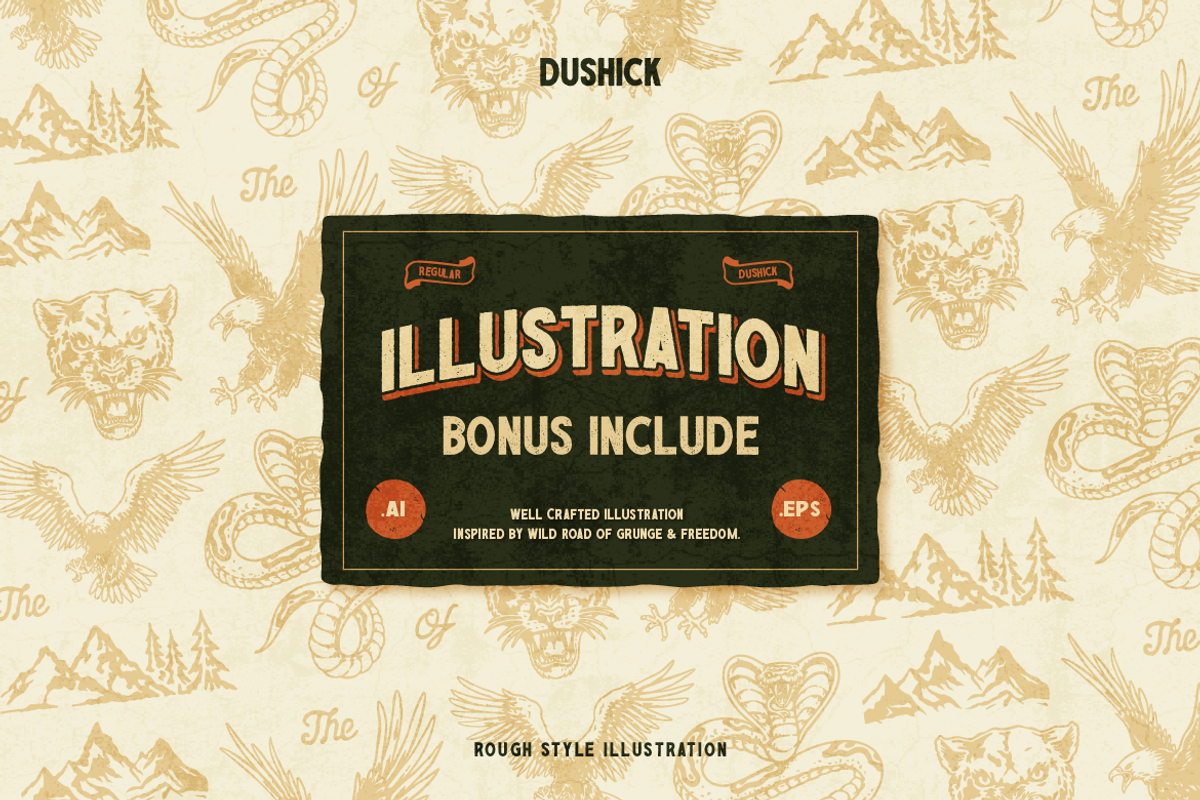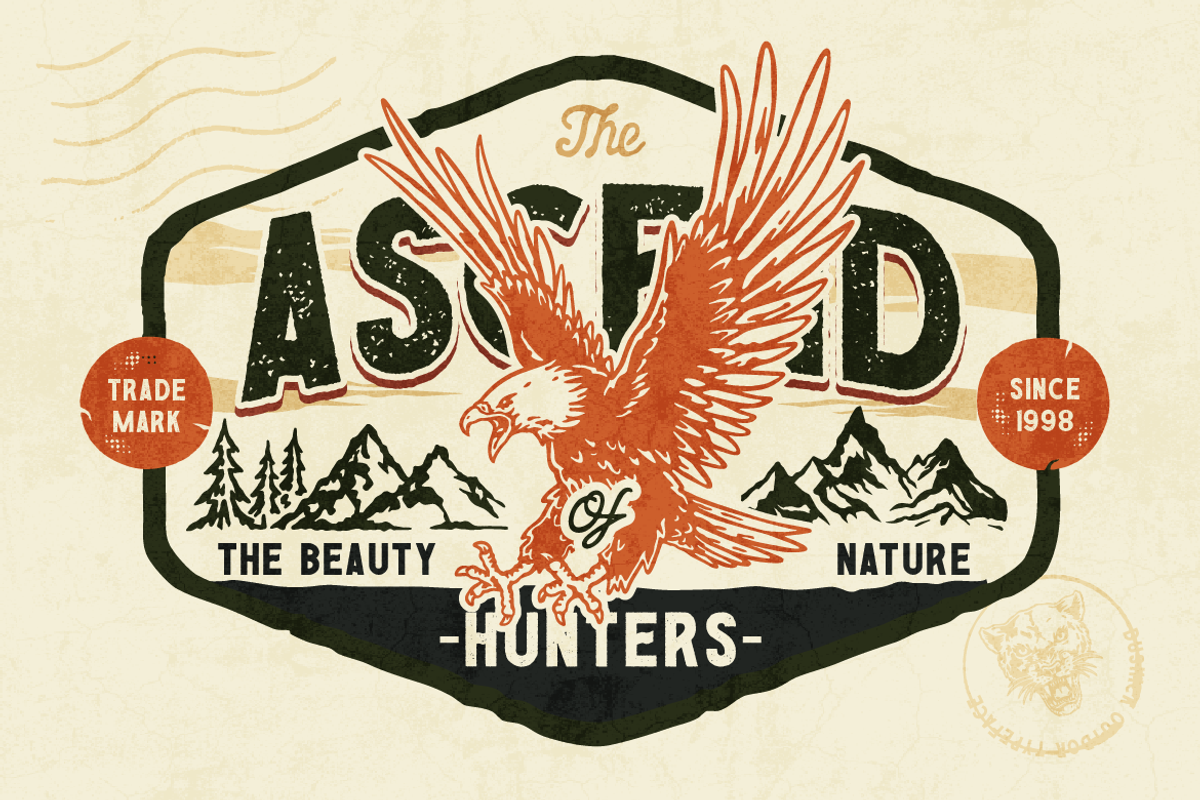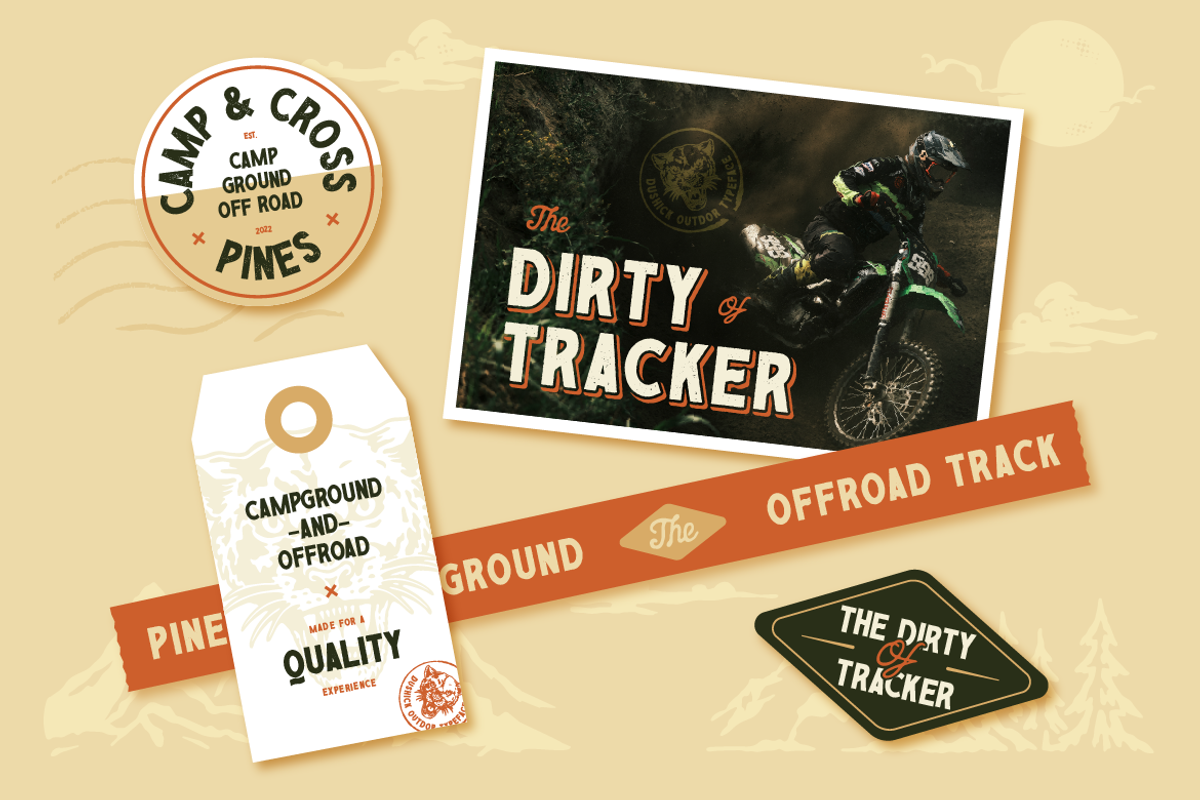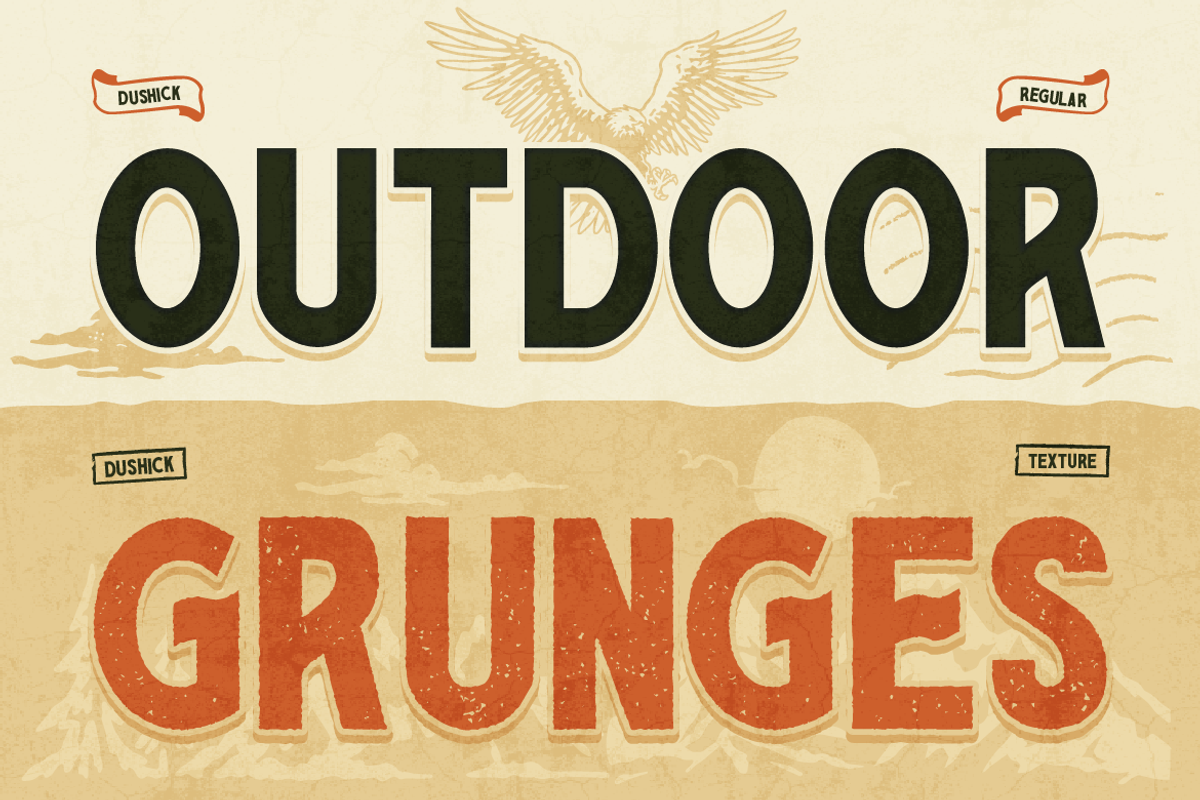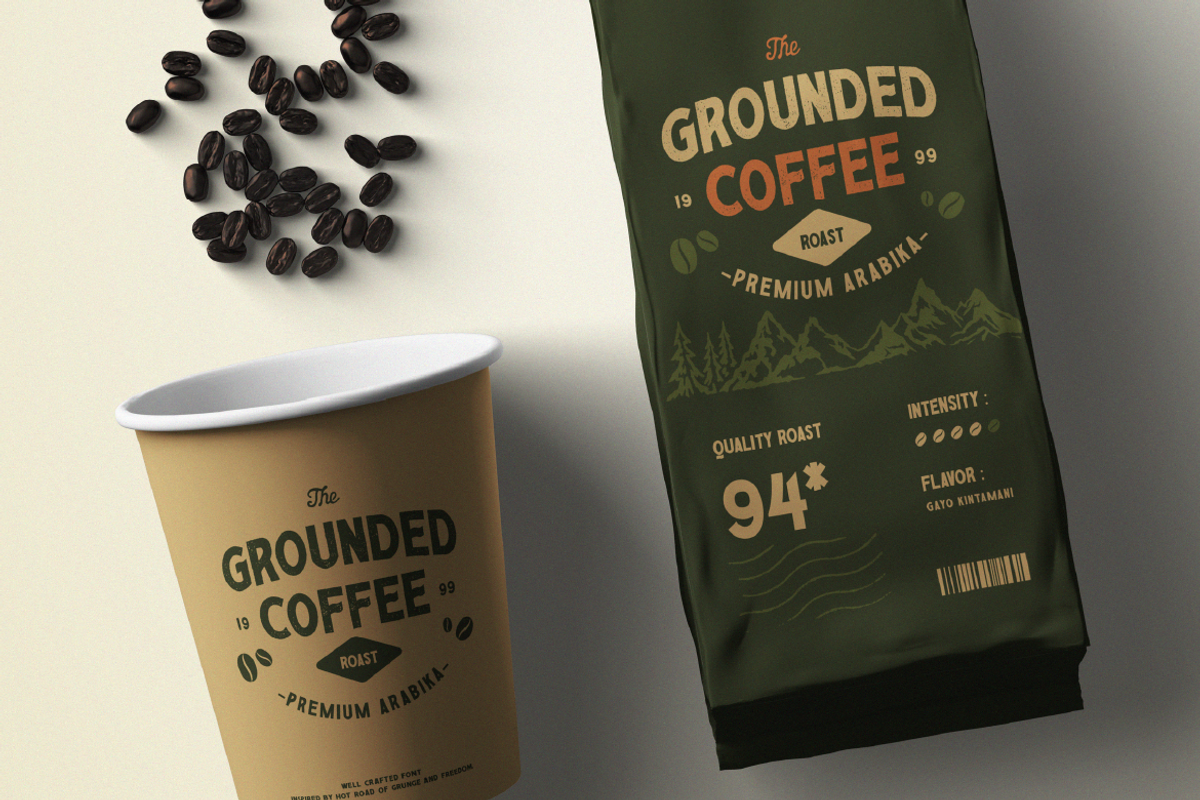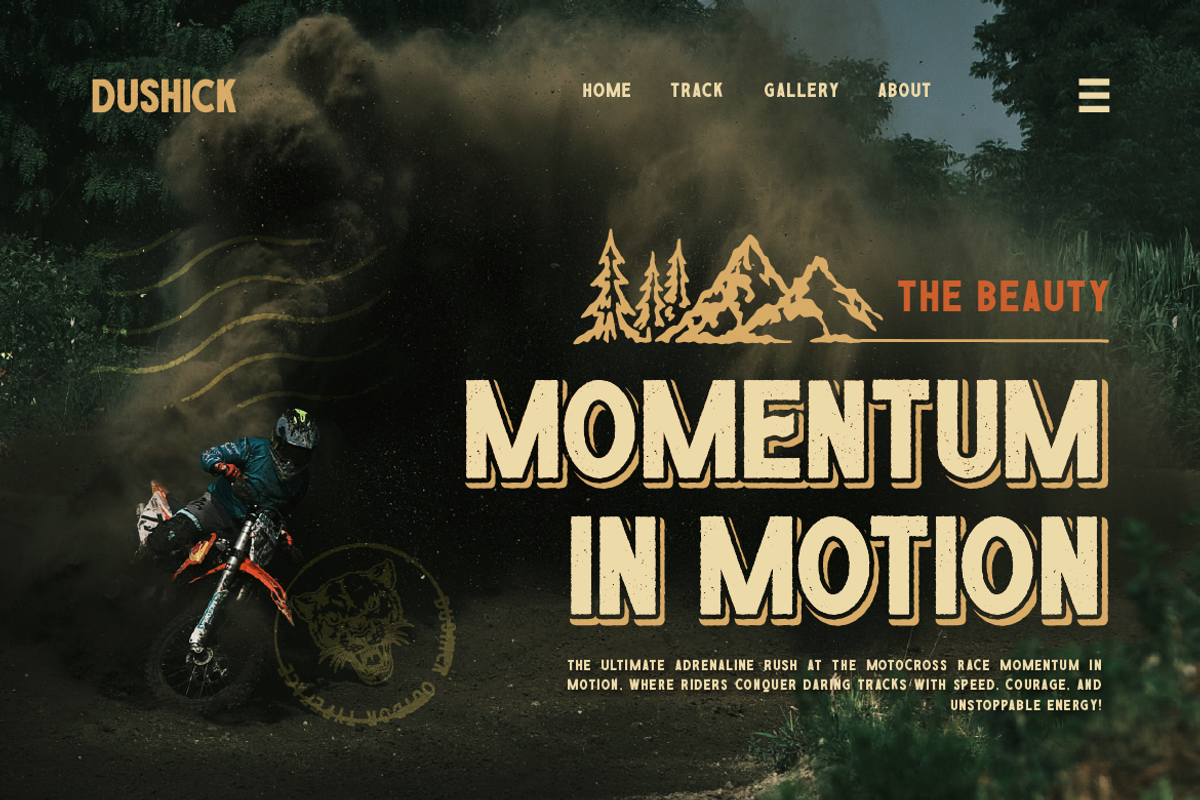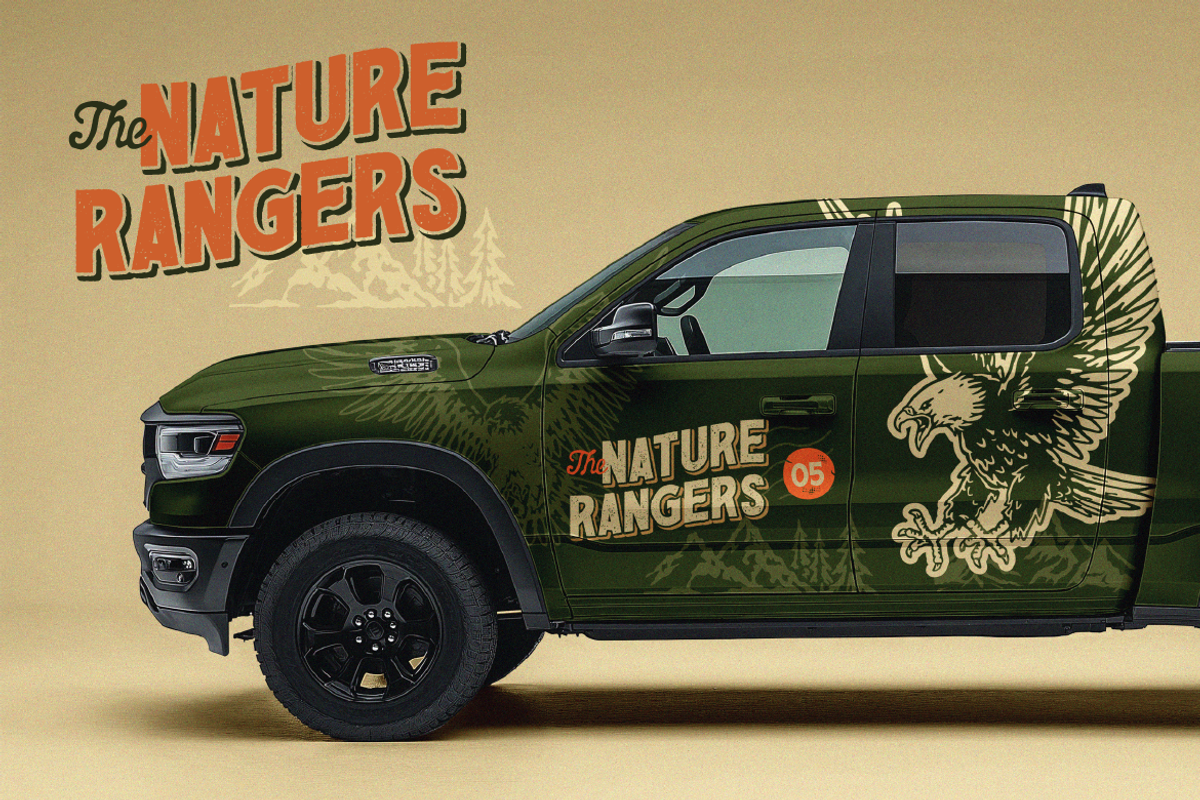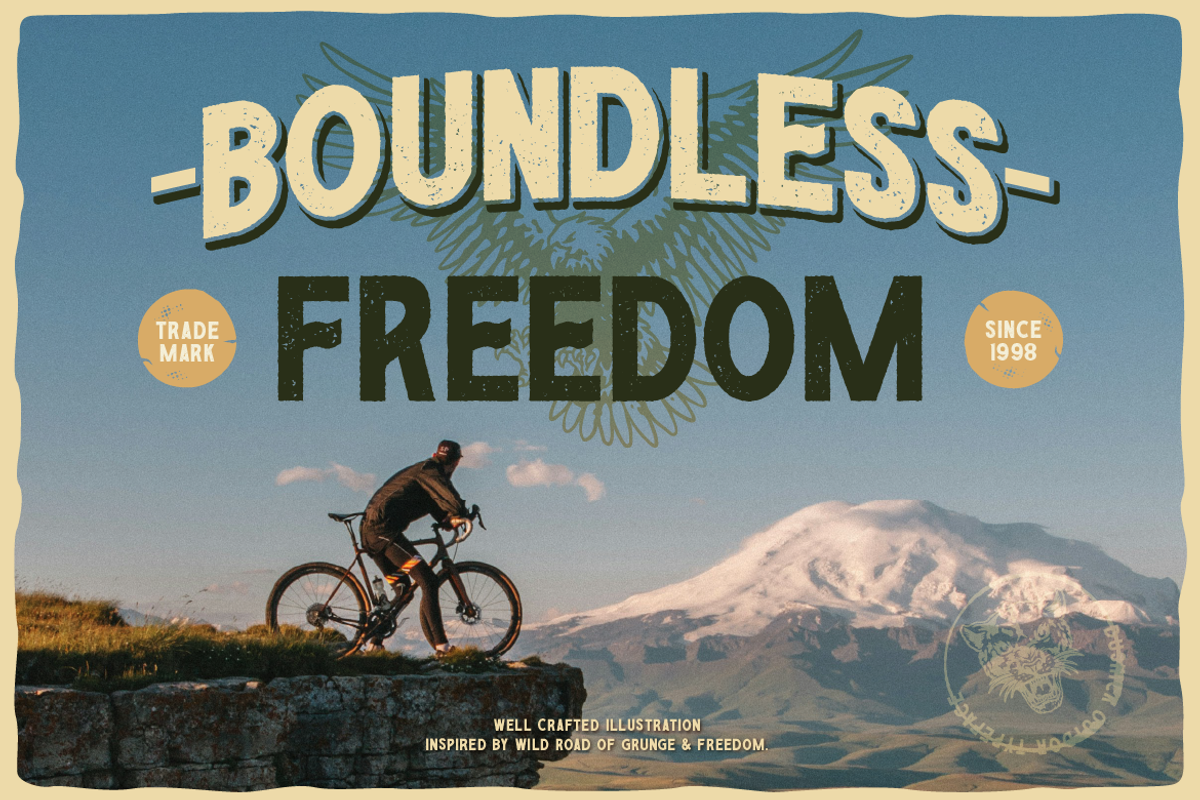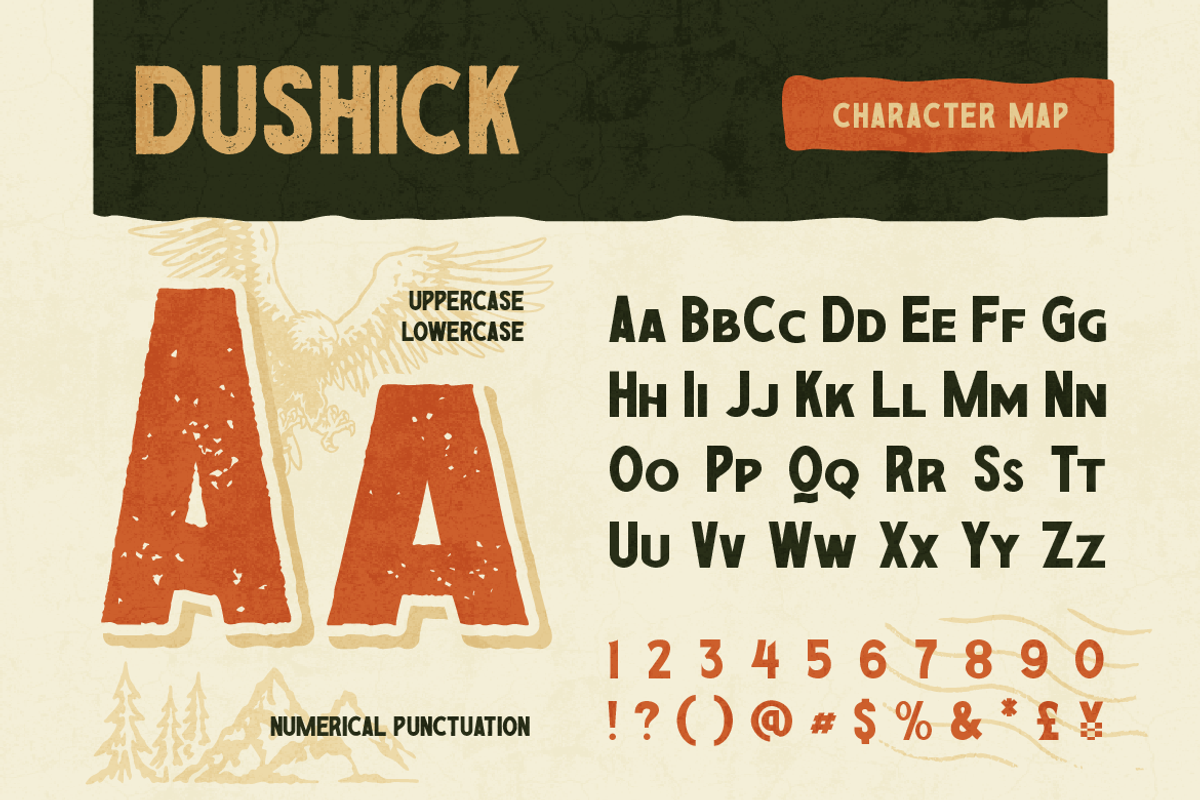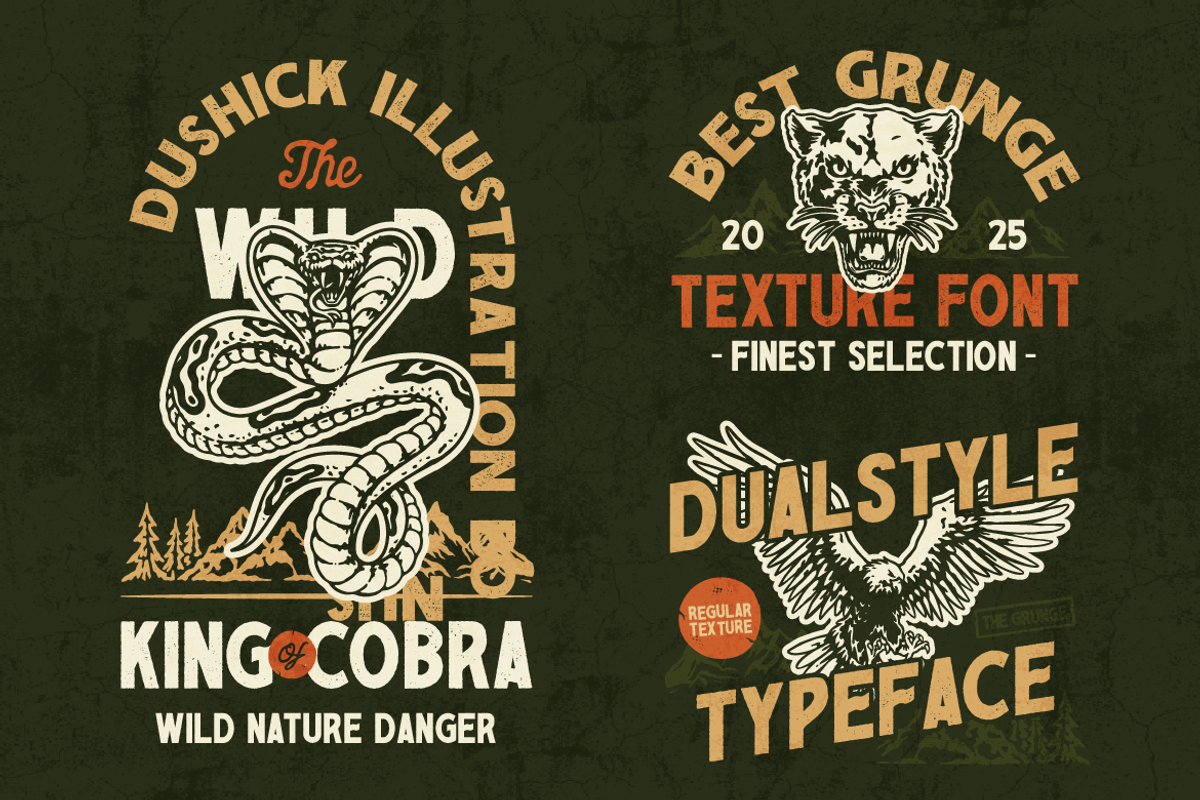
Dushick
Proudly present, Dushick, a bold and rugged display font that captures the spirit of the great outdoors. This font offers both a clean regular style and textures style for added versatility and stand out. Also this font include multilingual support making it suitable for international project design. Ideal for branding, streetwear, restaurant, logos, posters, merchandise, outdoor branding, camping gear and any design project with rustic and adventurous touch. To support the theme of this font, which is adventurous, this font comes with cool bonus illustration.
- A - Z set (Uppercase & Lowercase)
- Dushick Characters Map
- Dushick Illustration